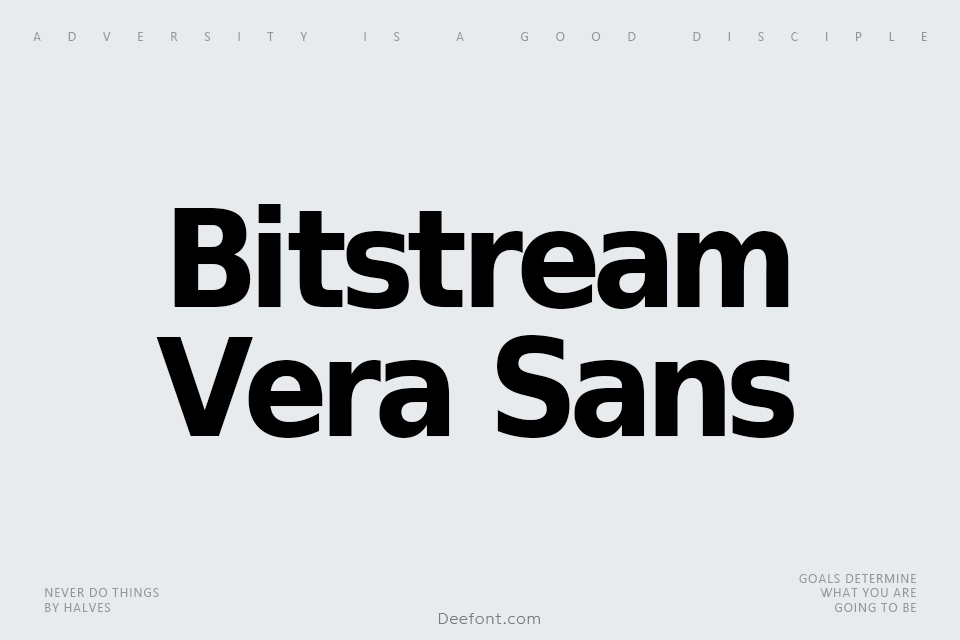
Bitstream Vera Sans Font Family
Bitstream Vera Sans is a clean, modern sans-serif typeface designed for exceptional clarity and readability. With well-proportioned letters and consistent weight distribution, this versatile font excels in both digital and print applications. Originally developed for the GNOME project, it features excellent character distinction and comprehensive Unicode coverage. Perfect for branding, signage, headlines, and digital content, Bitstream Vera Sans offers a professional appearance with a strong emphasis on legibility and contemporary aesthetics.
Designed by:The Gnome Project